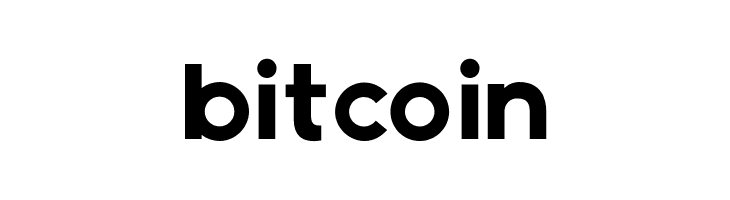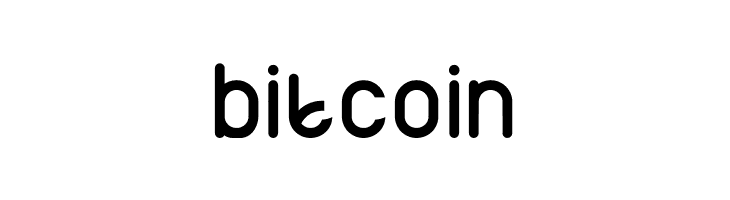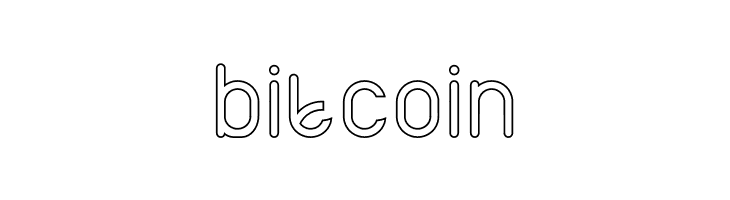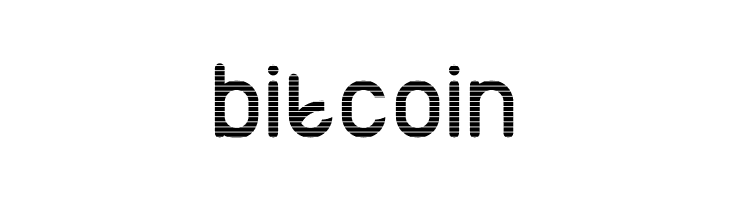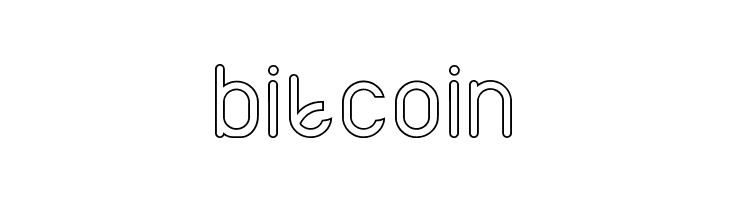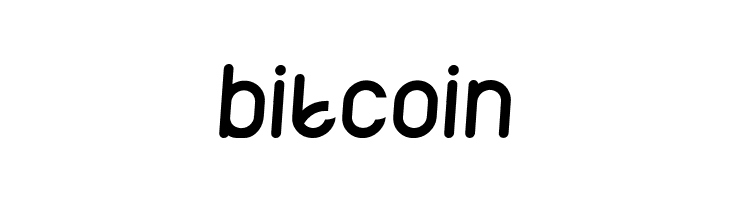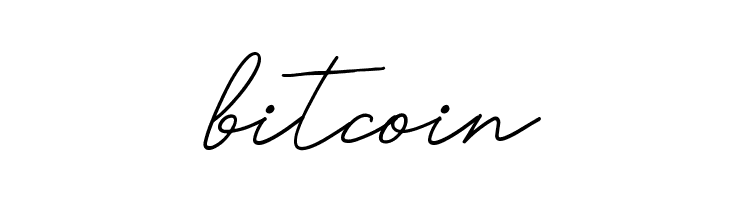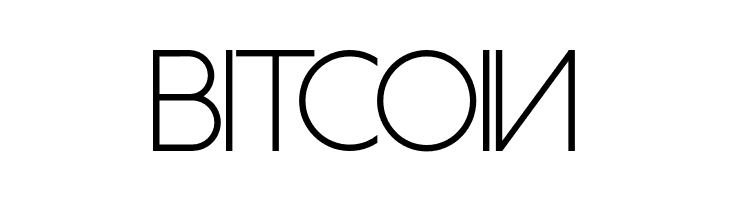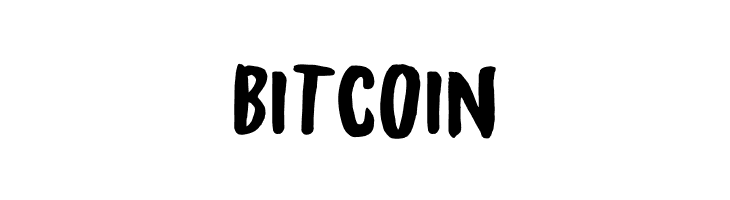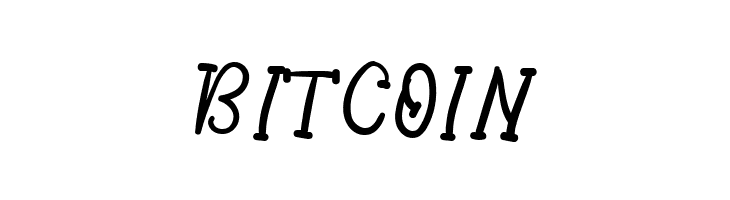
A bold, brush-style script font with dynamic, hand-drawn characteristics.
A modern outline font with clean lines and geometric shapes.
A bold and playful font with dynamic curves and lively character.
A playful, hand-drawn font with bold, whimsical strokes.
A bold, playful handwritten font with a casual and quirky style.
A bold, hand-painted font with a playful and artistic style.
A playful, cursive font with a dynamic and whimsical style.
A bold, playful font with exaggerated, cartoonish characters.
A playful, hand-drawn font with bold, rounded outlines and a whimsical style.
A fluid, cursive font with a handwritten style and consistent stroke thickness.
A playful, casual handwritten font with smooth, rounded strokes.
A bold, expressive brush-style font with a dynamic, handwritten appearance.
A bold, angular font with a modern blackletter style.
A bold, slanted font with sharp angles and a dynamic presence.
A decorative, geometric font with tall, narrow letterforms and a modern aesthetic.
A bold, flowing script font with elegant curves and fluid strokes.
A bold, flowing script font with elegant cursive letterforms.
A bold, geometric font with sharp angles and a modern Gothic influence.
A bold, geometric 3D font with intricate line patterns and strong visual impact.
A bold display font made of axe silhouettes for each character.
A bold, playful font with quirky, irregular letterforms and whimsical elements.
Bold slab serif font with decorative square enclosures and playful special characters.
A futuristic, geometric font with a mechanical and technical design.
A bold, modern font with high contrast and a slightly condensed style.
A modern, geometric sans-serif font with clean lines and uniform stroke width.
A bold, modern sans-serif font with geometric shapes and clean lines.
A modern, rounded sans-serif font with smooth curves and uniform strokes.
A playful, rounded font with smooth curves and consistent stroke width.
A playful, modern font with a slight italic slant and rounded characters.
A bold, striped font with a modern, geometric style.
A modern, geometric font with a hollow stroke design and rounded edges.
A playful, rounded, and slightly italic font with bold strokes.
A bold, geometric font with a striped, modern design.
A modern, geometric font with a hollow, outlined style and rounded edges.